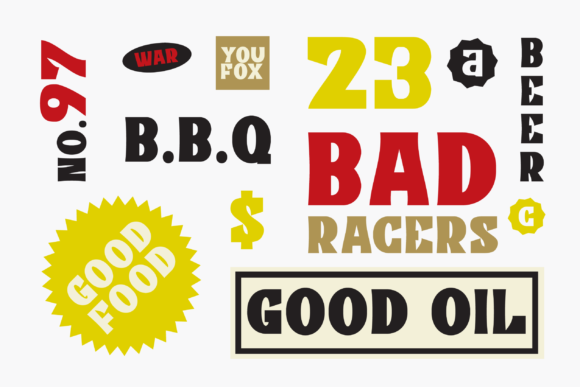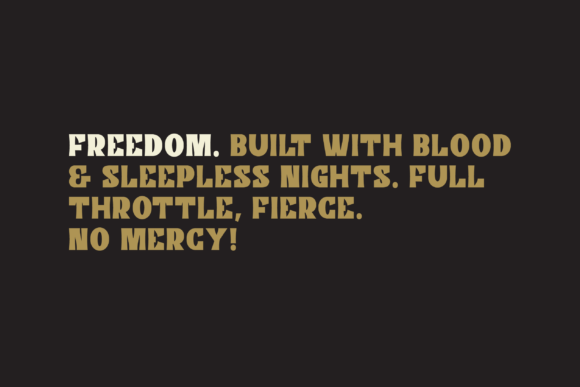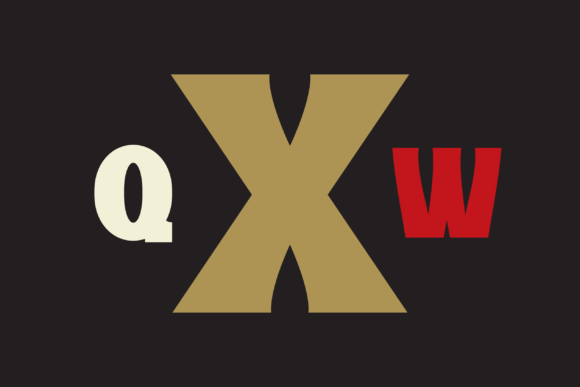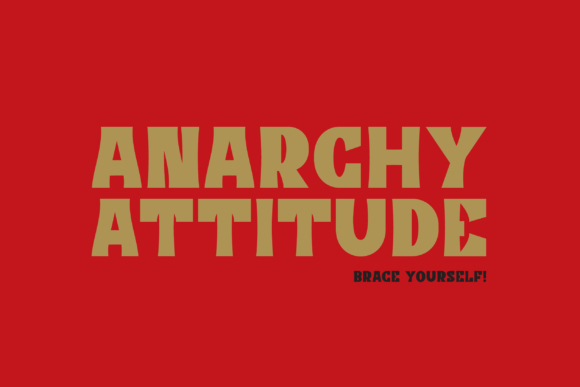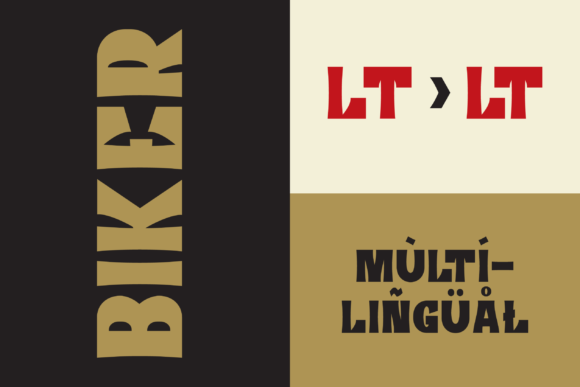
Introducing Bad Motor Font: The Bold and Chunky Lettered Display Font
Are you tired of using the same old fonts in your designs? Do you want to make a statement and create something that stands out from the crowd? Look no further than Bad Motor Font, a bold and chunky lettered display font that’s sure to take your designs to the next level.
What is Bad Motor Font?
Bad Motor Font is a minimalist yet powerful font that’s designed to make a statement. With its bold and chunky lettering, this font is perfect for designers and crafters who want to add a touch of edginess to their work. Whether you’re creating a logo, poster, or social media graphic, Bad Motor Font is sure to grab attention and leave a lasting impression.
Key Features of Bad Motor Font
- Bold and Chunky Lettering: Bad Motor Font features bold and chunky lettering that’s sure to stand out in any design.
- Minimalist Design: Despite its bold appearance, Bad Motor Font has a minimalist design that’s clean and easy to read.
- Versatile: This font is perfect for a wide range of design projects, from logos and posters to social media graphics and more.
Why Choose Bad Motor Font?
There are many fonts to choose from, but Bad Motor Font stands out from the rest. Here are just a few reasons why:
- Unique Design: Bad Motor Font has a unique design that’s sure to set your work apart from the rest.
- High-Quality: This font is made from high-quality materials, ensuring that it looks great in any design.
- Easy to Read: Despite its bold appearance, Bad Motor Font is easy to read, making it perfect for designs that need to communicate a message.
Design Ideas Using Bad Motor Font
Bad Motor Font is versatile and can be used in a wide range of design projects. Here are a few ideas to get you started:
- Logos: Use Bad Motor Font to create a bold and eye-catching logo for your business or brand.
- Posters: Create a statement poster using Bad Motor Font to grab attention and communicate a message.
- Social Media Graphics: Use Bad Motor Font to create eye-catching social media graphics that stand out in crowded feeds.
- T-Shirts and Merchandise: Use Bad Motor Font to create bold and eye-catching designs for t-shirts and other merchandise.
Bad Motor Font is a bold and chunky lettered display font that’s perfect for designers and crafters who want to make a statement. With its minimalist design and powerful appearance, this font is sure to take your designs to the next level. Whether you’re creating a logo, poster, or social media graphic, Bad Motor Font is a great choice. So why wait? Download Bad Motor Font today and start creating designs that stand out!